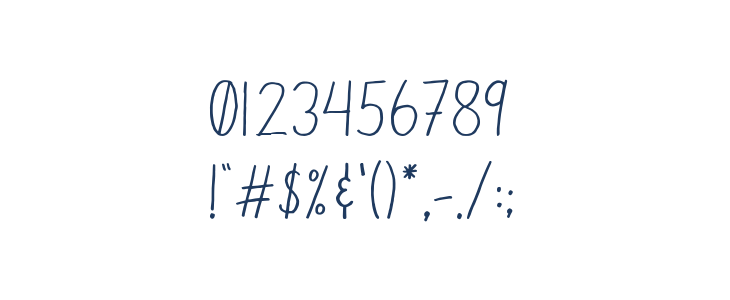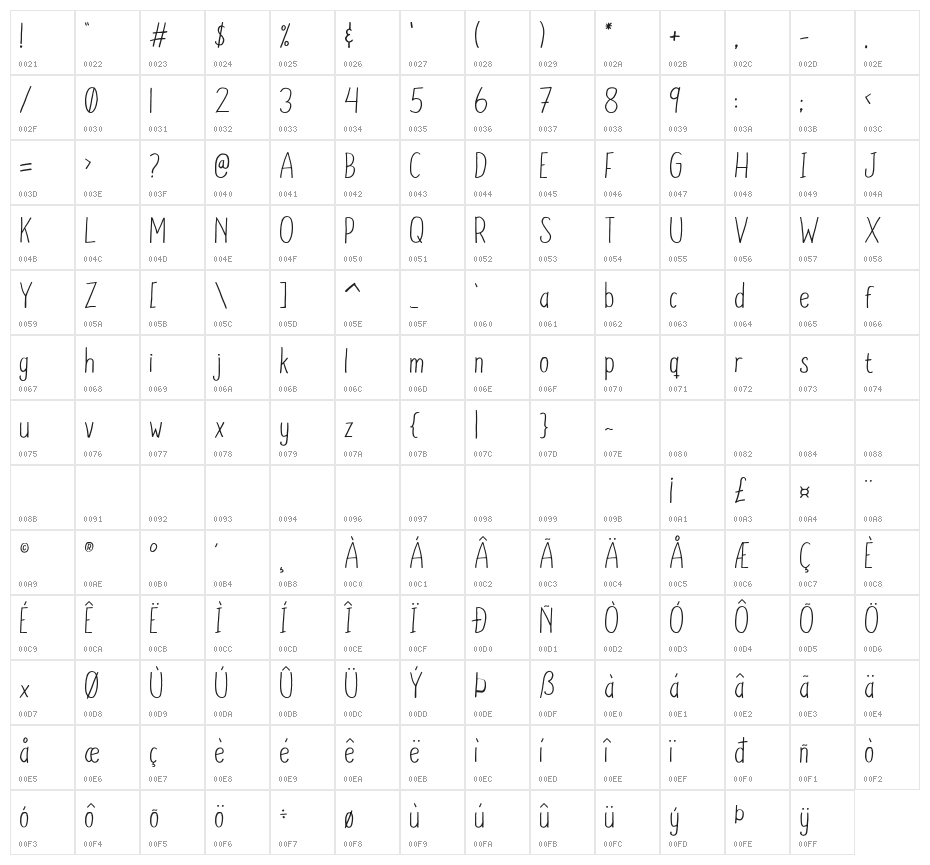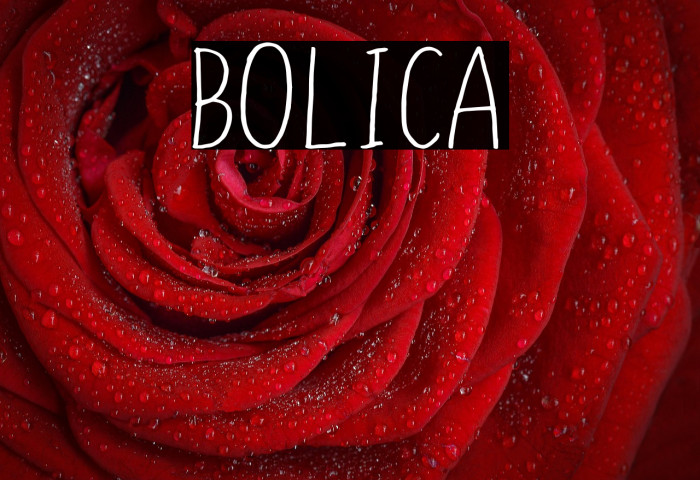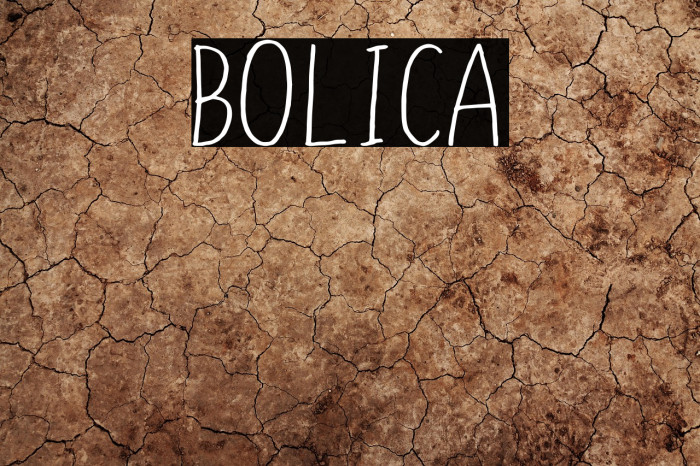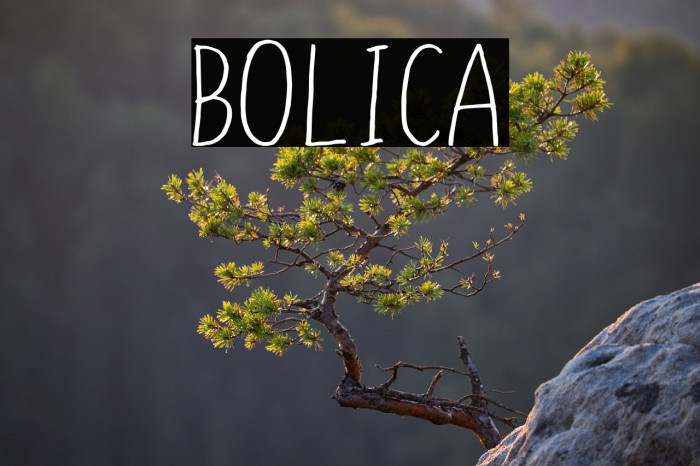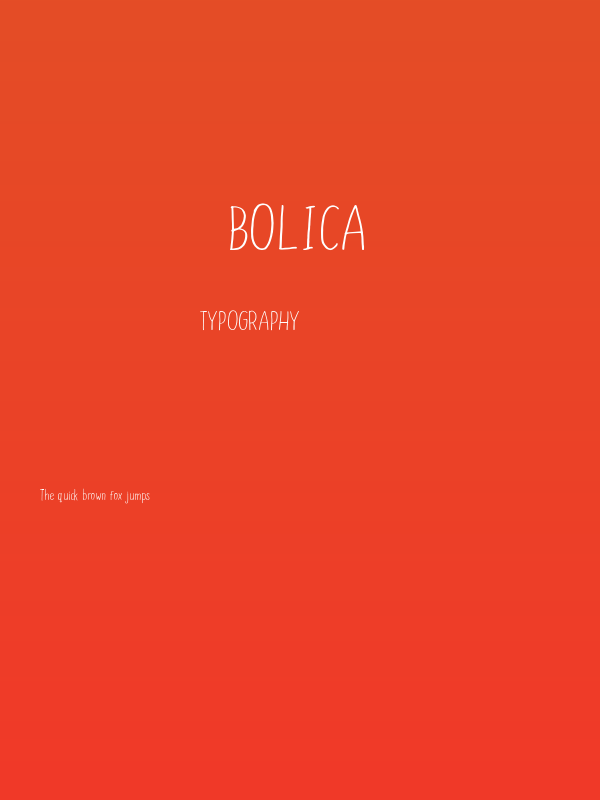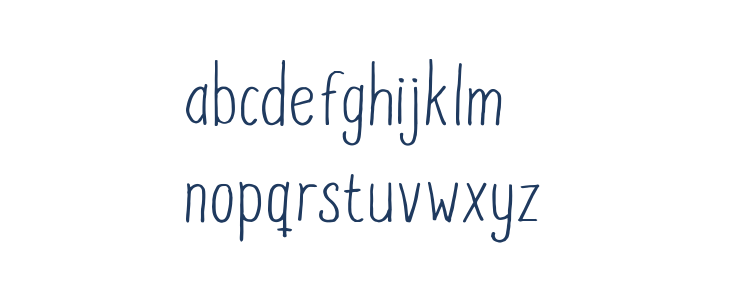
BOLICA Font
BOLICA Description
This font features a playful and handwritten style, characterized by its tall, narrow letters and slightly irregular strokes that give it a casual, informal appearance. The uppercase letters are consistently tall and slender, while the lowercase letters maintain a similar narrowness, adding to the cohesive look. The numerals are distinct and easy to read, matching the overall style of the alphabet. Special characters are included, maintaining the same playful and handwritten aesthetic. The font's unique charm makes it suitable for projects that require a personal touch.